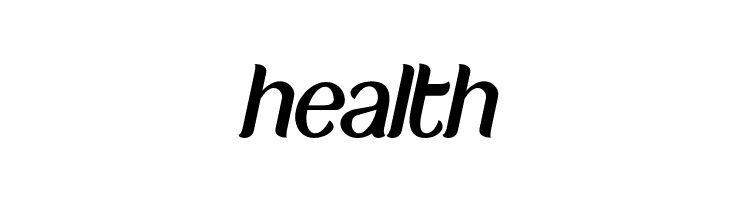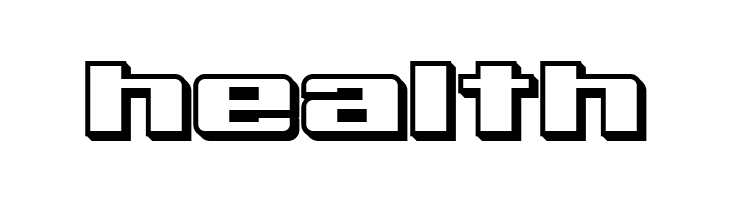
A dynamic italic font with smooth curves and elegant slant.
A playful, hand-drawn font with bold, rounded characters and a whimsical style.
A graceful and elegant cursive font with flowing, intricate characters.
A modern sans-serif font with clean lines and excellent readability.
A bold, geometric font with outlined characters and a modern, industrial style.
An elegant script font with flowing, cursive strokes and refined style.
An elegant and dynamic italic font with flowing letterforms and strong serifs.
A classic serif font with elegant, calligraphic influences and moderate stroke contrast.
A classic serif font with elegant strokes and moderate contrast.
A classic serif font with elegant, refined strokes and pronounced serifs.